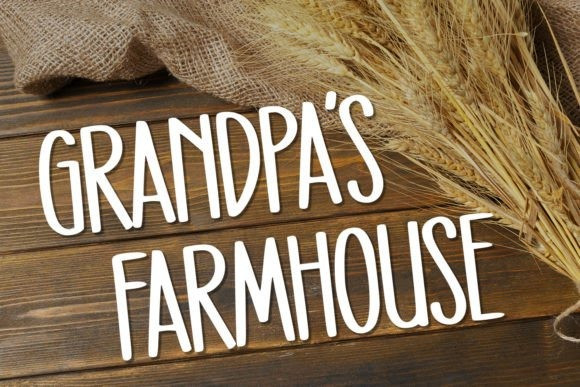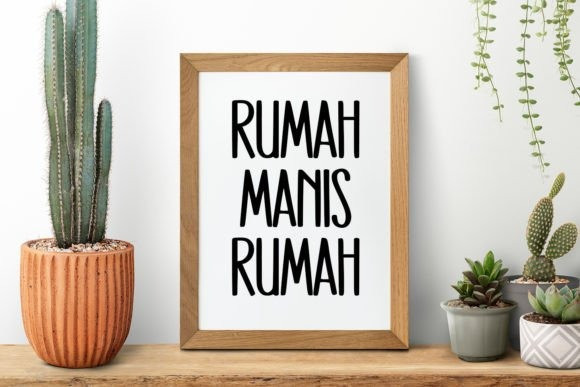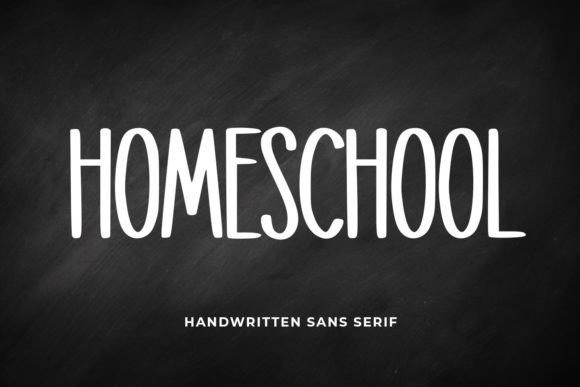
Homeschool Font
Homeschool Font is a fun and friendly handwritten font. Not too thin and not too thick, balanced and varied, this font was designed to enhance the beauty of your projects.